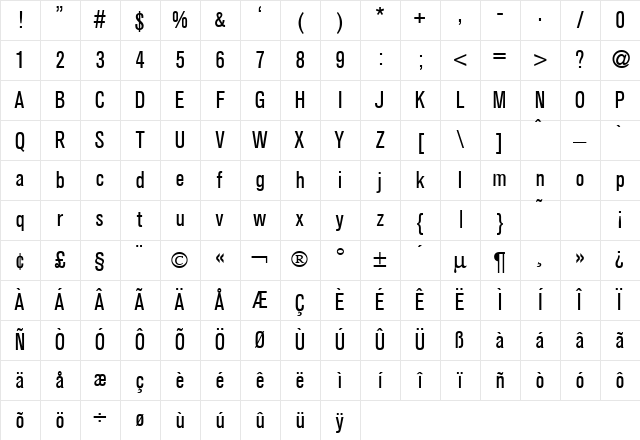
Complete AkzeleratCondensed Normal glyph index. Displaying only characters natively supported by AkzeleratCondensed Normal font.
AkzeleratCondensed is a composed and adaptable typeface that performs quietly and consistently across a wide range of design contexts. Its narrow stance lets it pack a punch even in space-constrained designs.